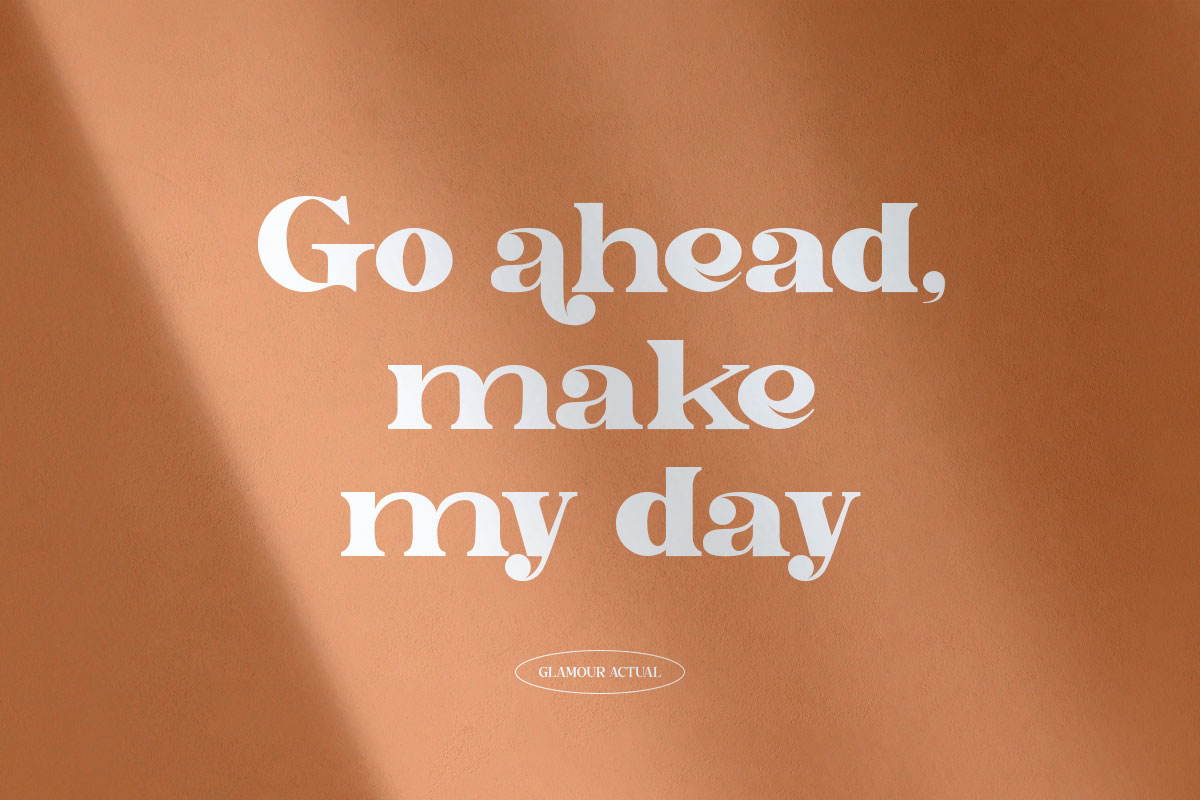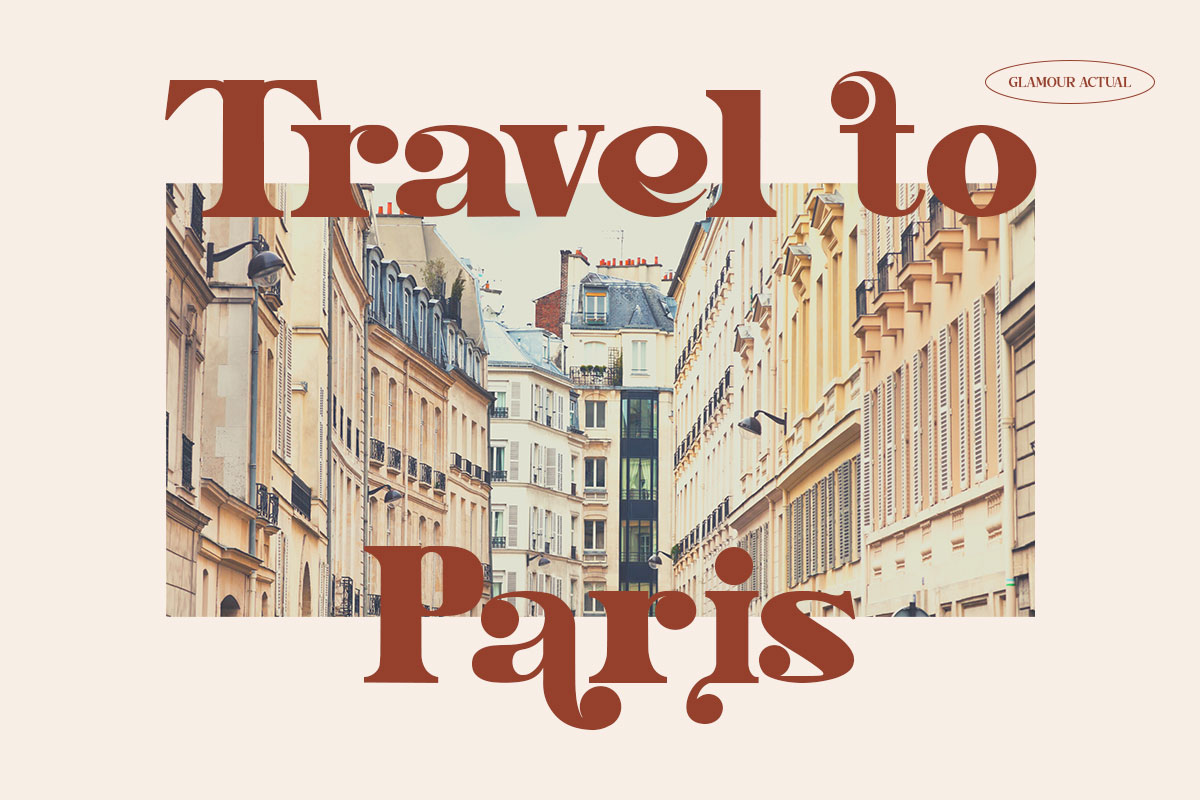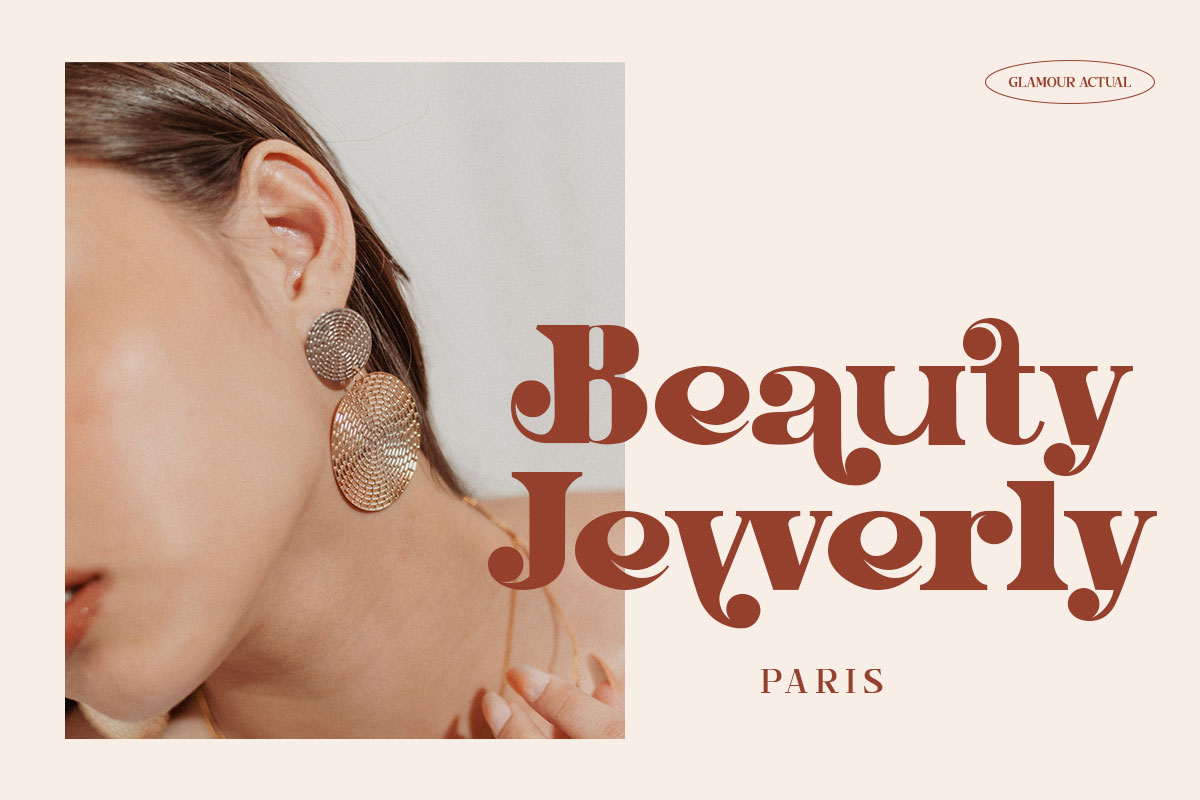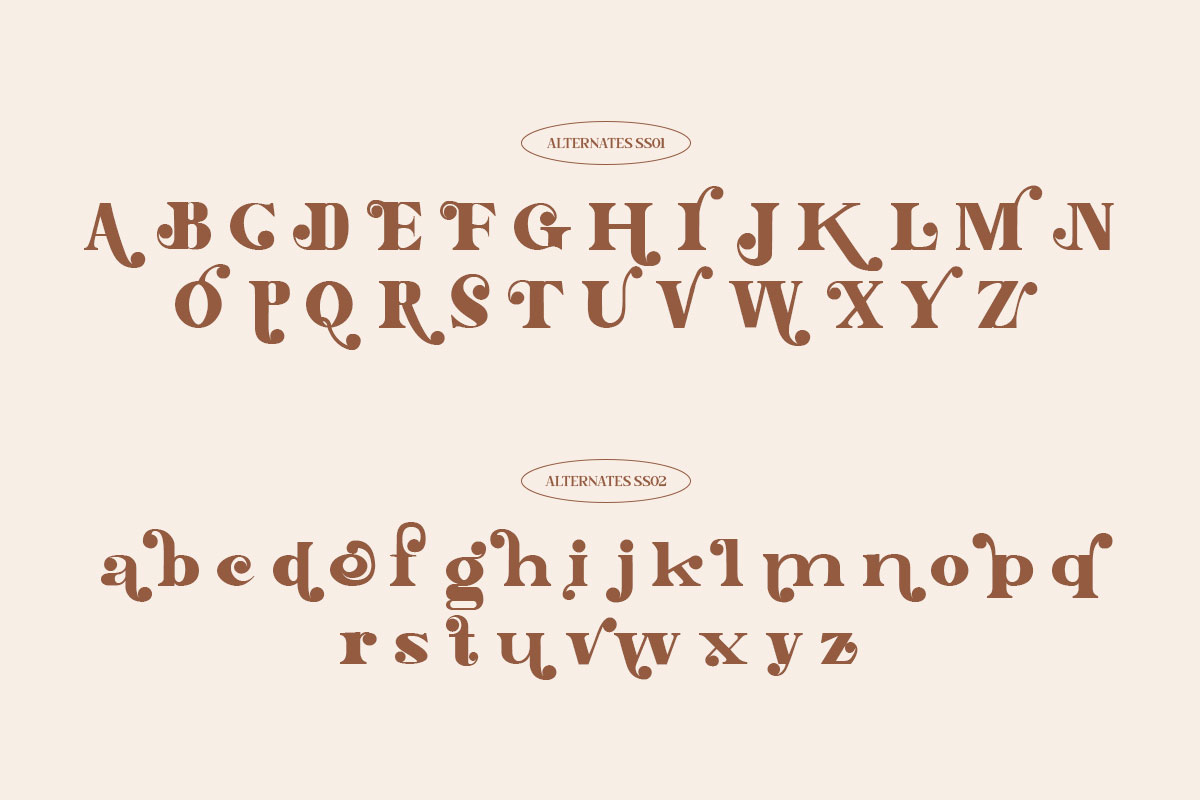
Glamour Actual Serif Font Like the name given to this typeface, Glamour Actual Serif Font is a serif typeface with an elegant appearance and a luxurious design. This font is here to help you create beautiful and eye-catching letter designs. Glamour Actual Serif Font is a modern font with a unique and attractive shape. This font is curved and has thicker indentations at the end of each letter. Glamour Actual Serif Font is a font that takes effort to read and understand from a distance. However, this font is not proper for writing long sentences or blog content. Better for short sentences. Glamour Actual Serif Font is the best font to use for event needs. This font can use on posters, banners, and tickets. In addition, this font can use as merchandise such as key chains, stickers, and others. This font can use as a digital font, such as in product promotion advertisements, music event advertisements, and intro and outro videos. Glamour Actual Serif Font was created to give an elegant, modern, and luxurious impression. This impression can change according to the theme and ornaments that follow. This font can be lively and colorful when combined with bold ornaments and colors. It still looks great and is very attractive. Our collection of serif fonts is compatible for use as; Figma Fonts, Canva Fonts, Freepik Fonts, and Adobe Fonts. They also work as Windows Fonts and Apple Fonts. For your social media needs, you can use and install fonts in our collection of serif fonts to use as Instagram Fonts, Facebook Fonts, and Twitter Fonts.